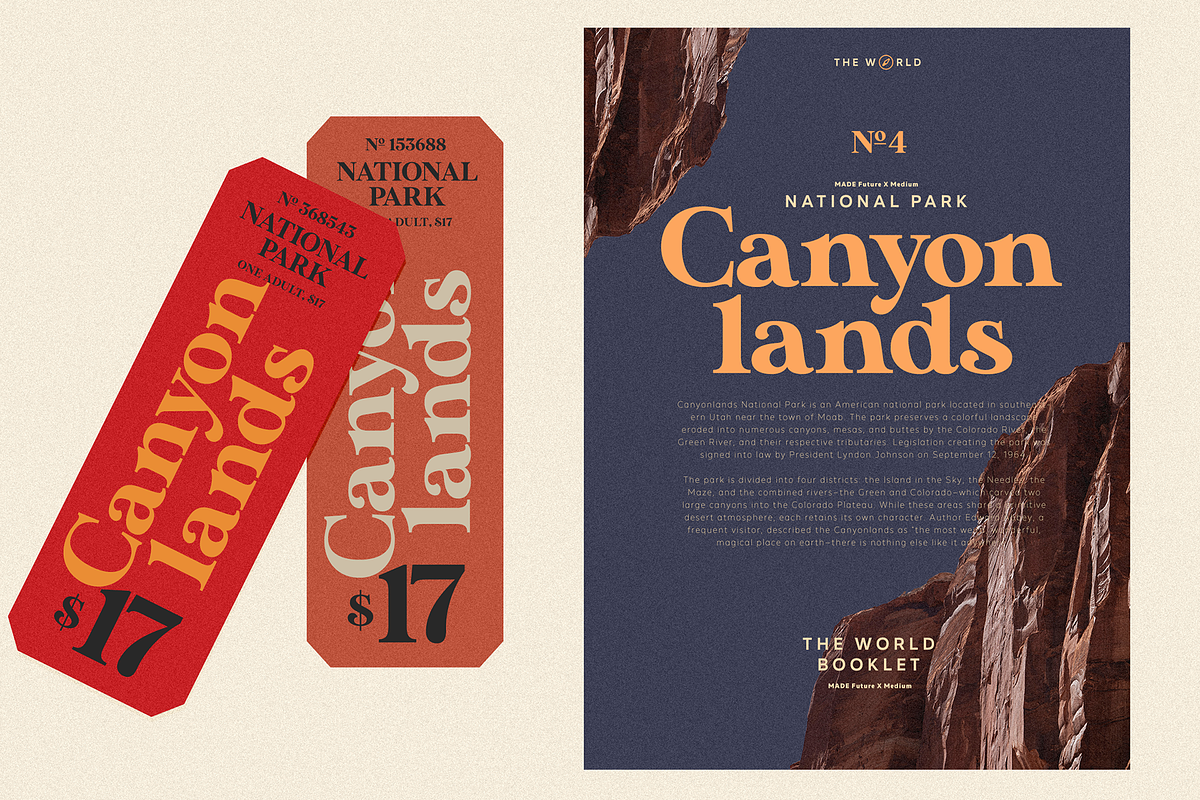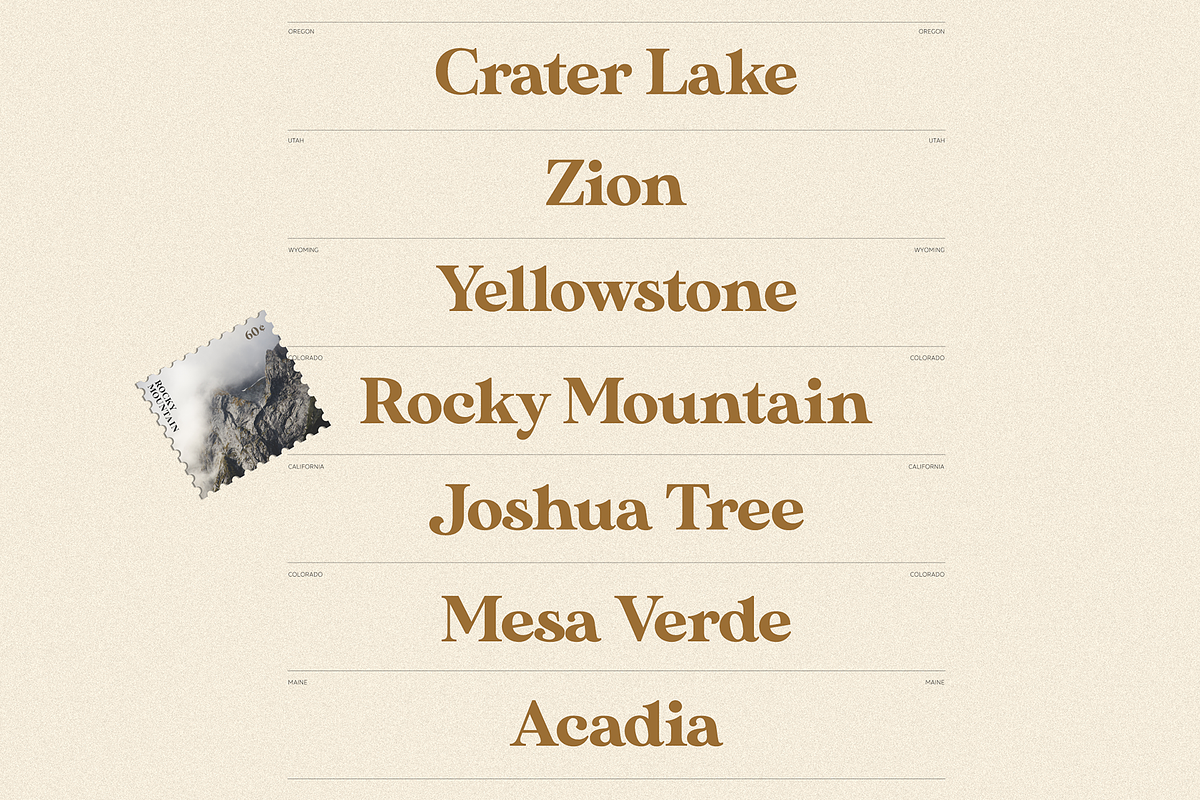
MADE Sunflower is a modern serif typeface with old-style elements. It will be perfect for many projects: fashion, magazines, logos, branding, photography, invitations, quotes, blog headers, posters, advertisements, postcards, etc.